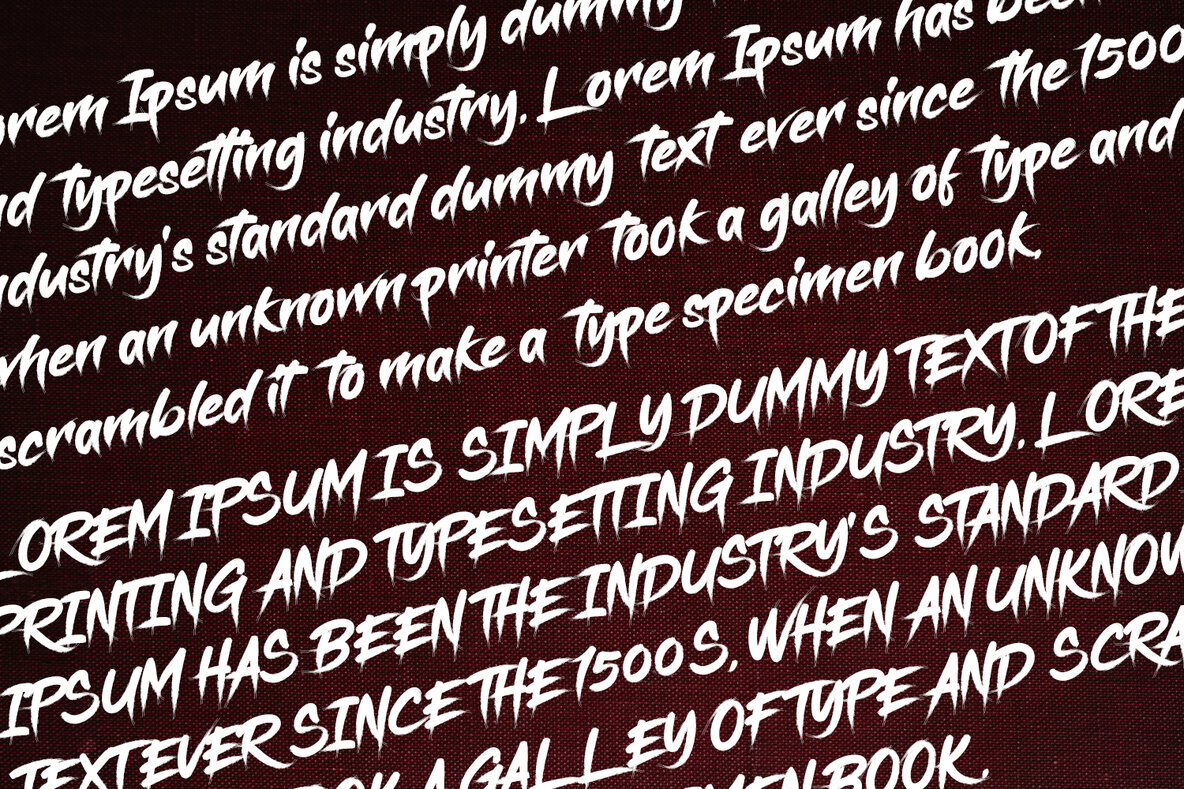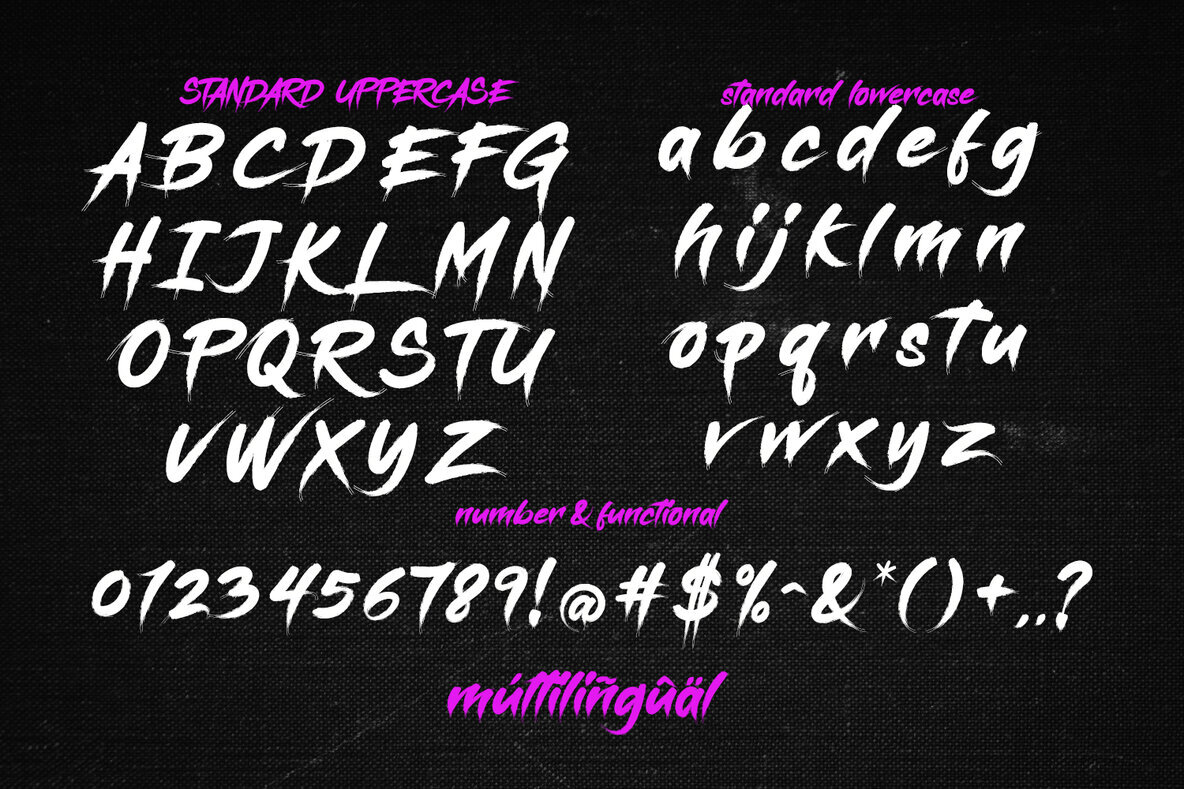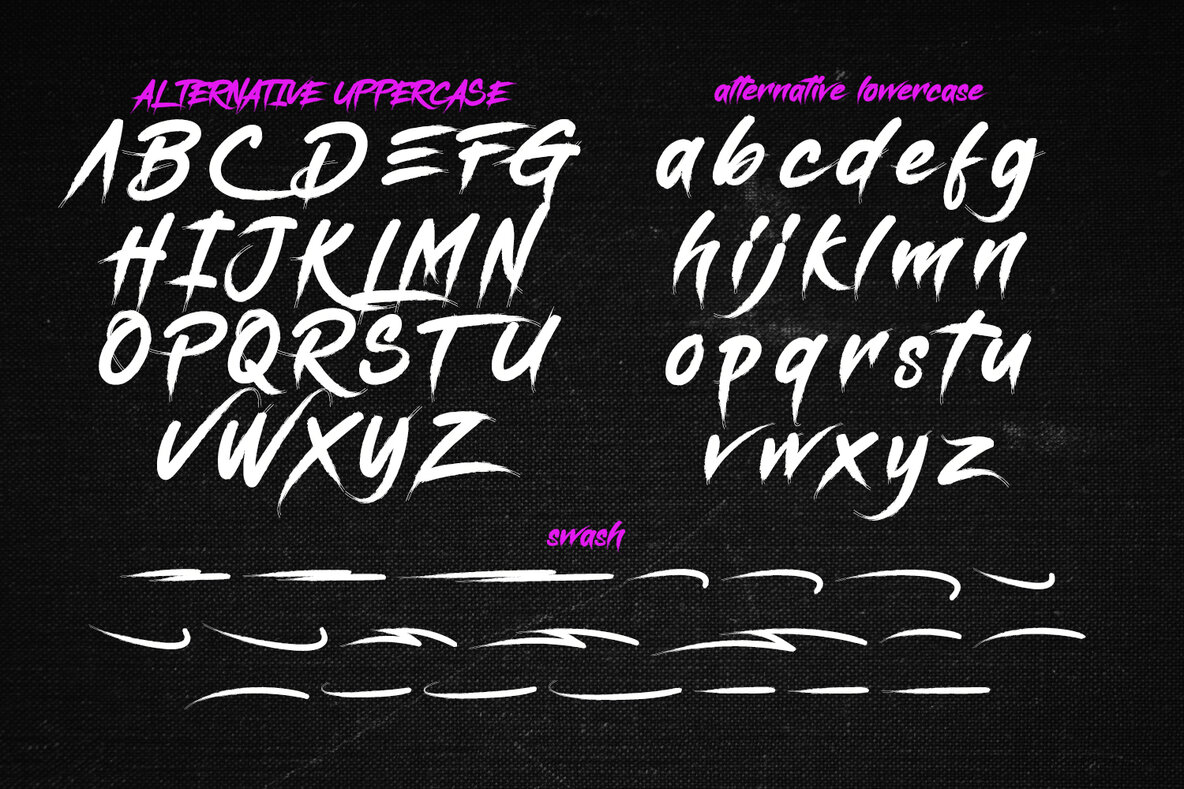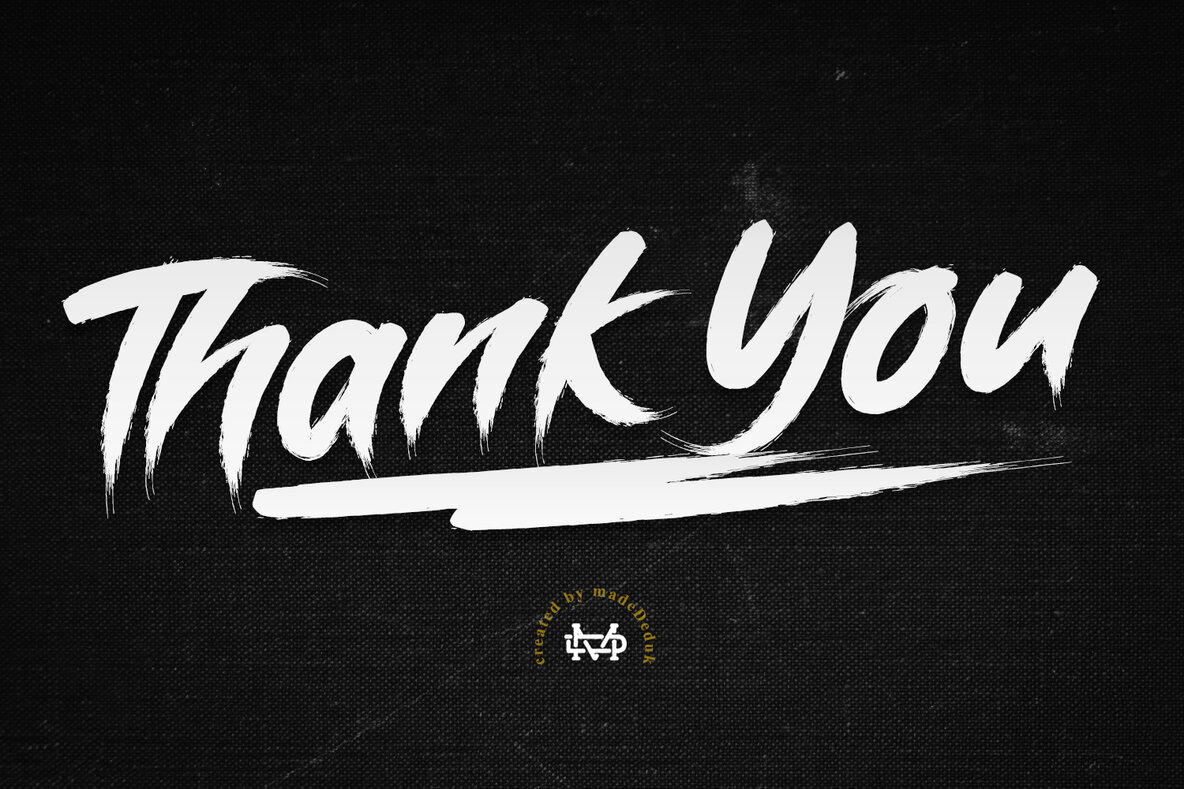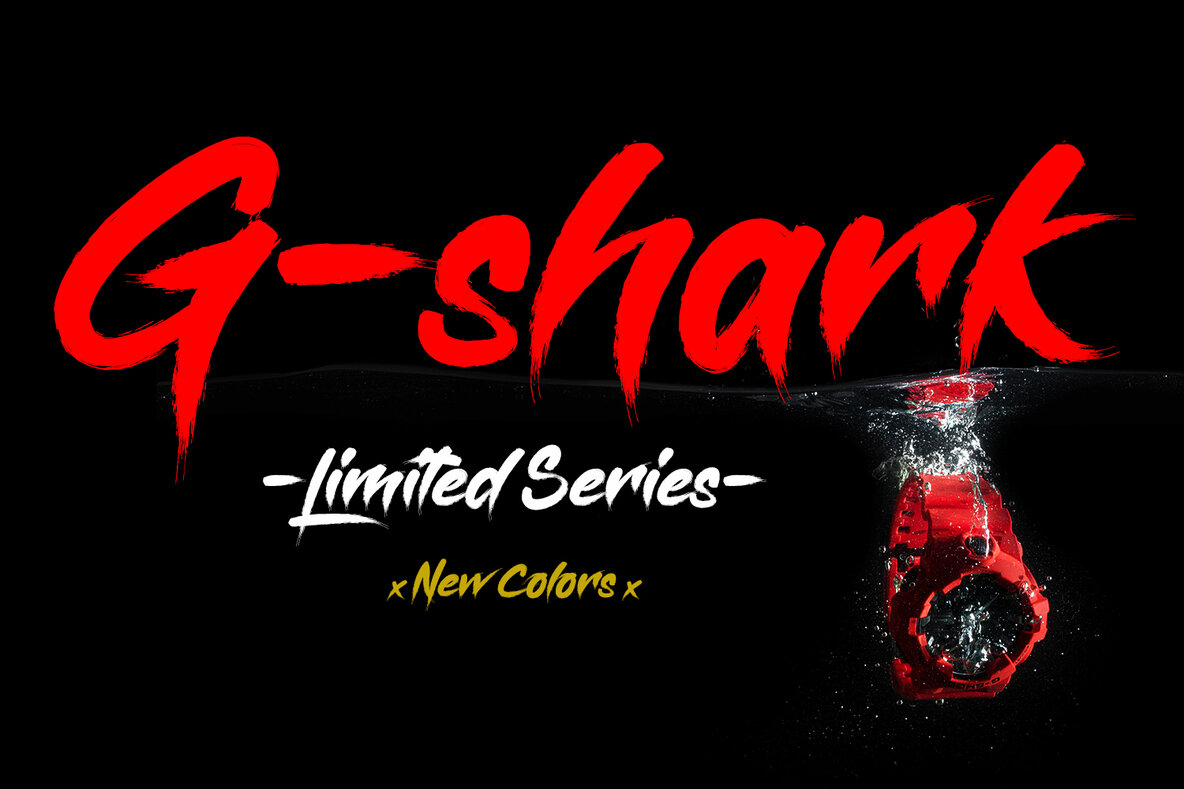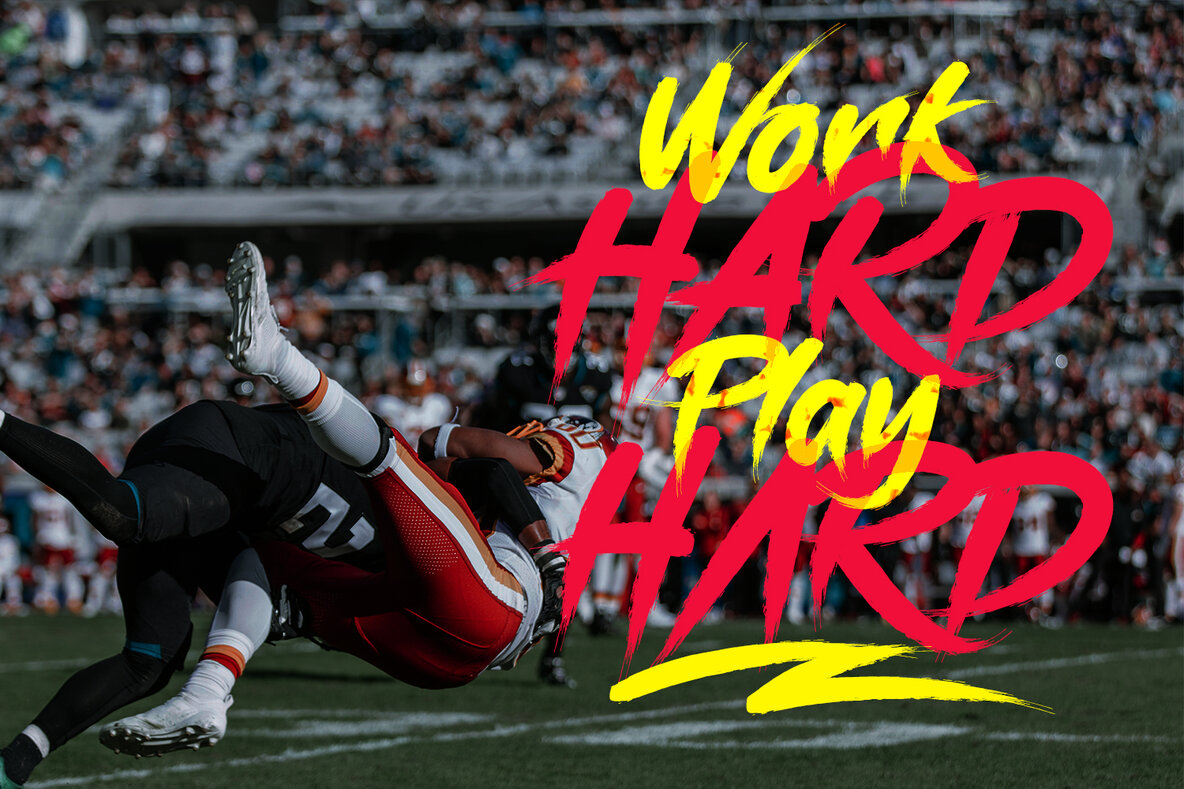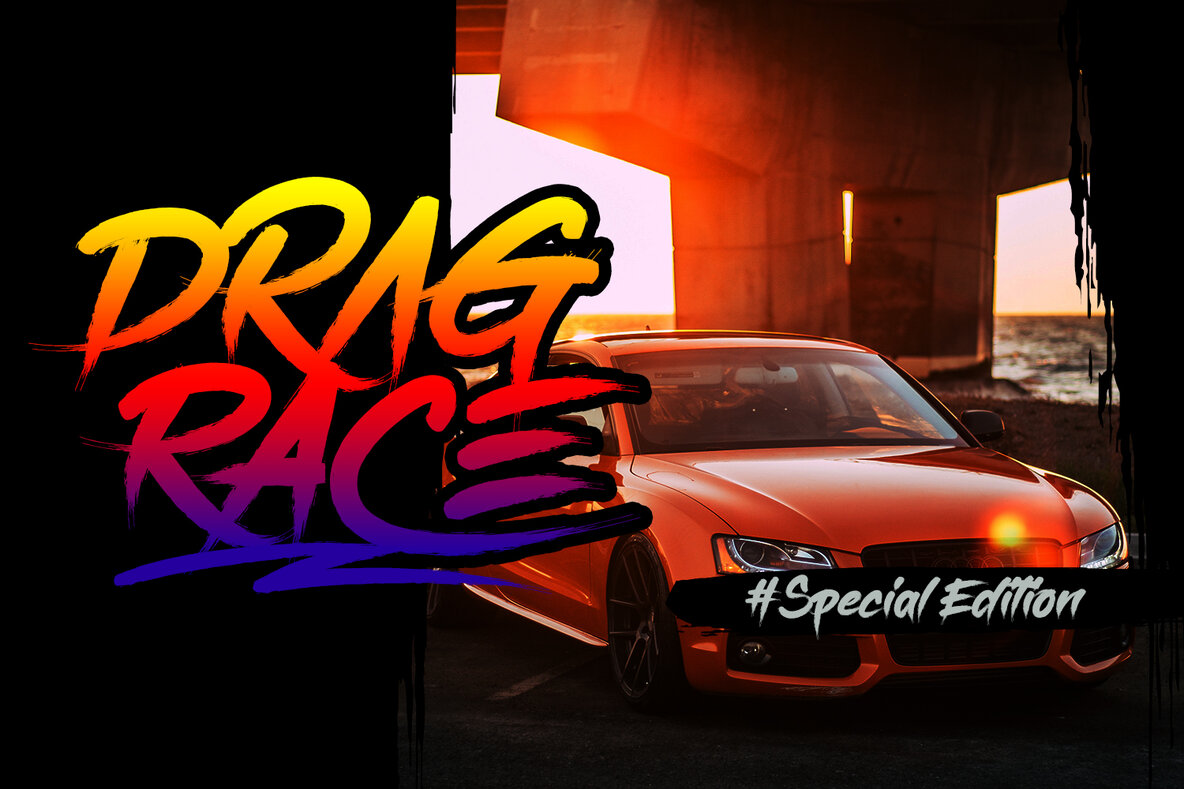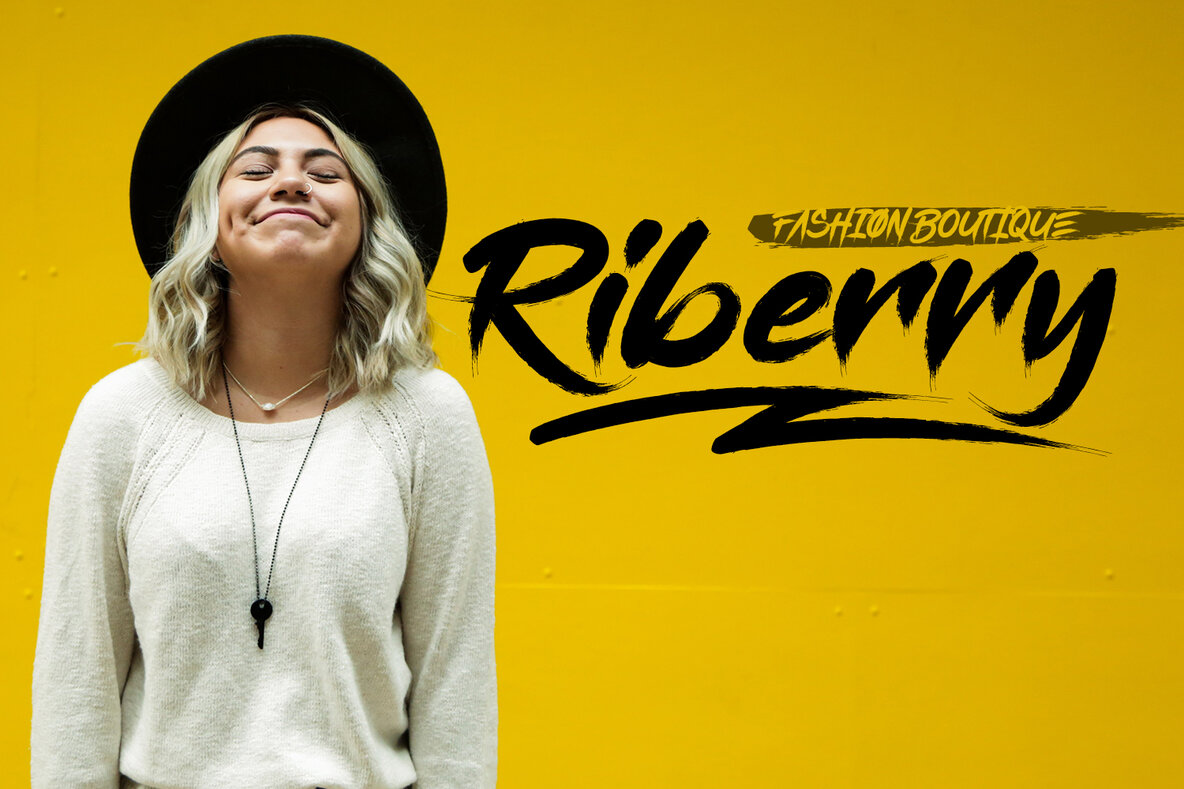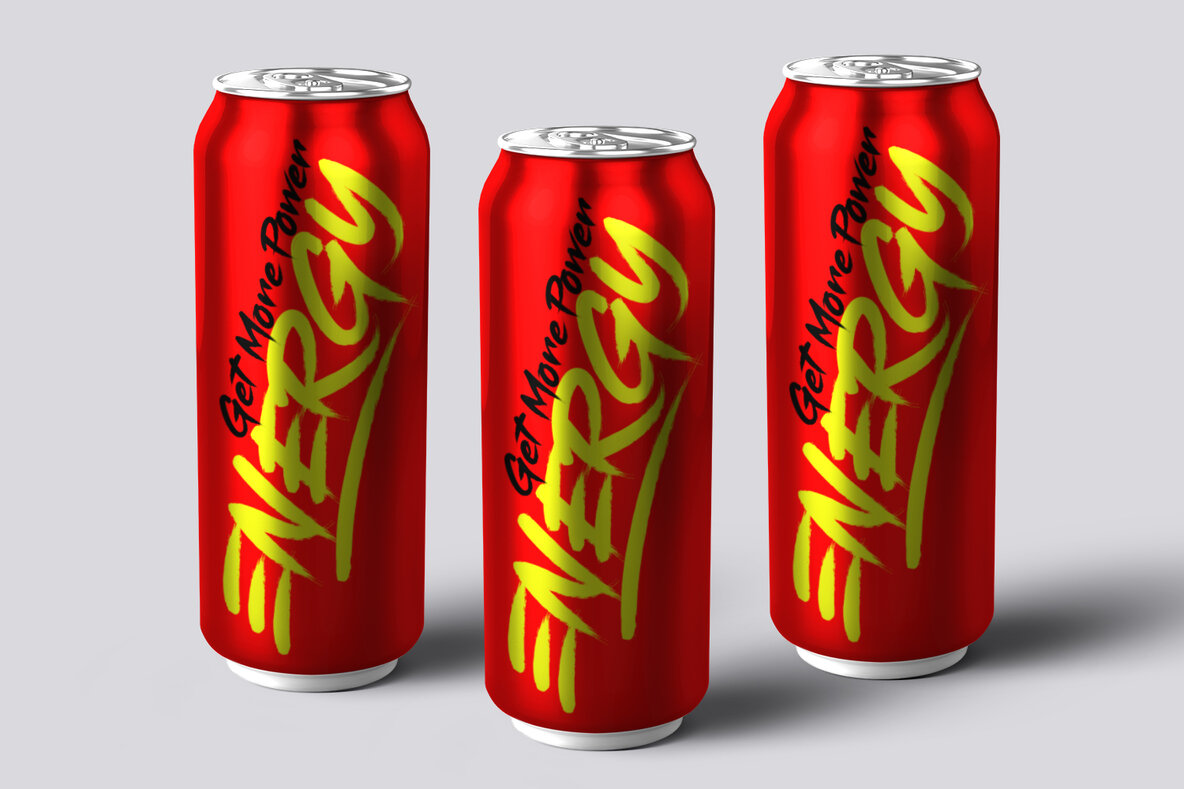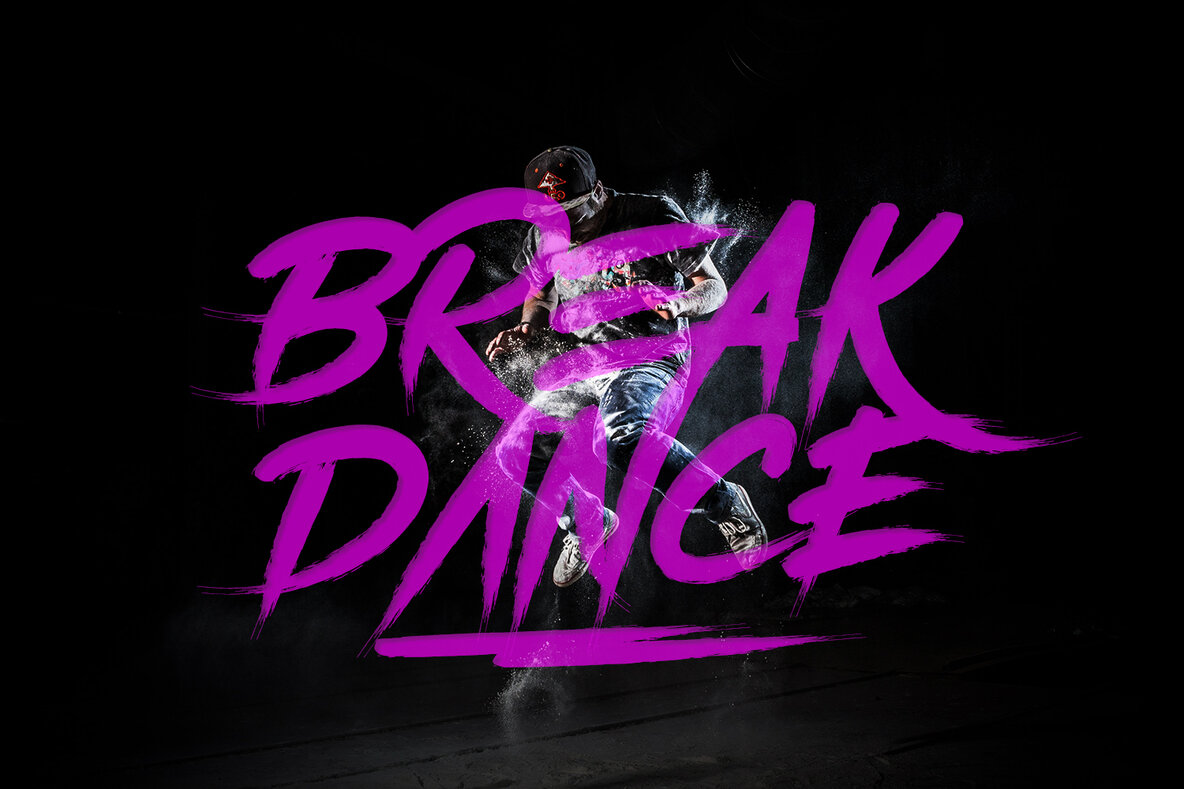
Gisbon Font
Gisbon is crafted as a modern brush typeface that seamlessly integrates style with versatility. Ideal for graphic designers and creative directors, this font shines on poster designs and book covers, as well as across a wide array of media including merchandise and fashion campaigns. Its fluid strokes lend a unique character to newsletters, branding efforts, and advertising strategies, ensuring that your work captures attention and communicates effectively.Gisbon: Contemporary Brush Typeface for Bold Designs
Gisbon's ability to adapt makes it an invaluable tool for creative projects across various platforms, enhancing the visual language of any design it graces.